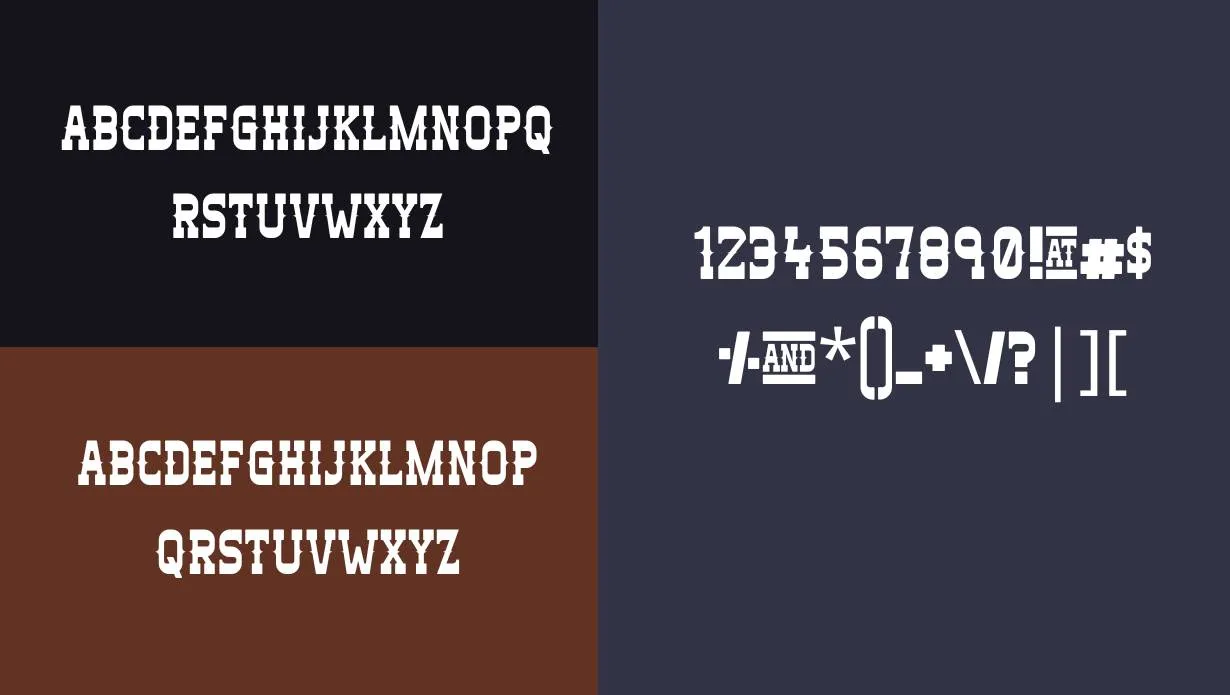
The Brigand font showcases a strong and rough style, commonly used in daring designs, band logos, or projects that require a rugged and unconventional look.
Its unique appearance adds a distinctive and rebellious edge to various creative endeavors, making it perfect for projects that require a rebellious or unconventional look.
| Name | Brigand Font |
| Designer | Western films |